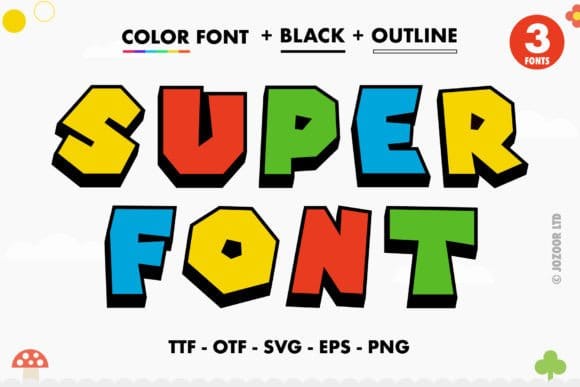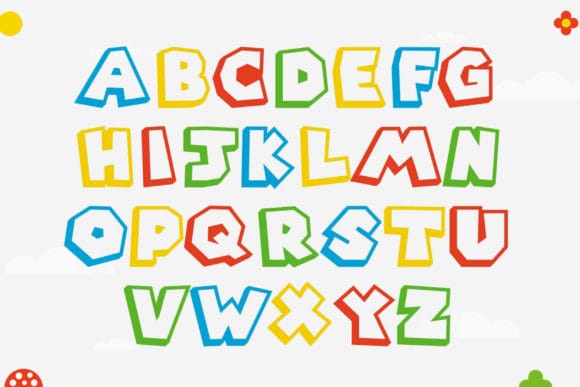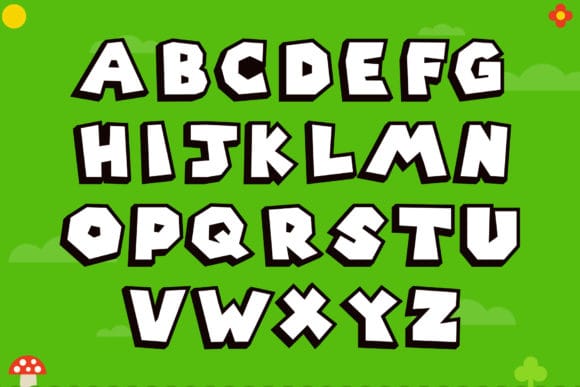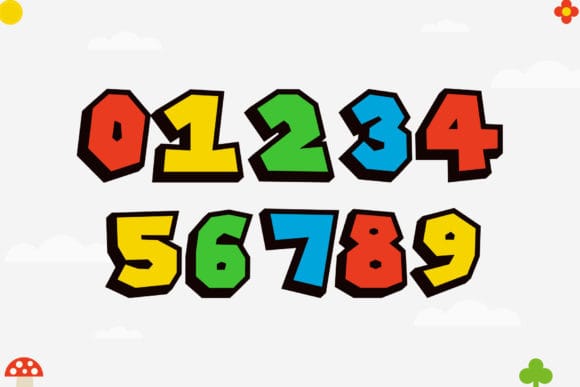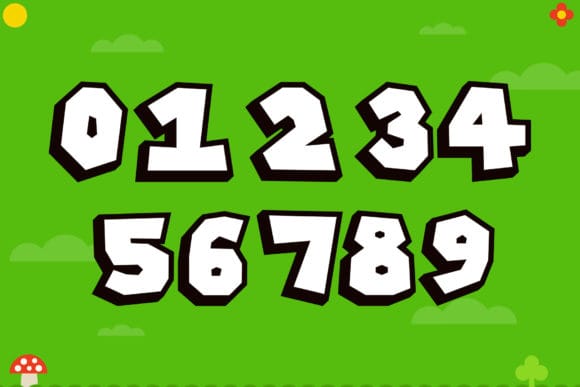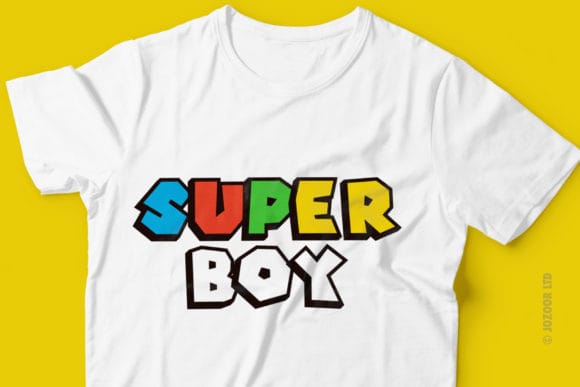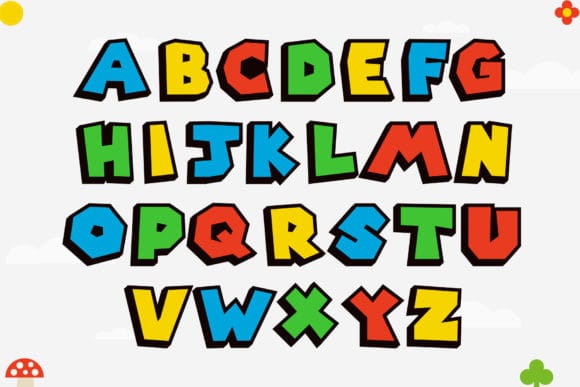
Super Font
Meet Super: the heavyweight champion of playful, chromatic typography. Designed for those who aren’t afraid of a little volume, this typeface blends a thick-set silhouette with a vibrant color palette to turn any project into a visual celebration. Whether youβre crafting high-energy branding or eye-catching digital assets, Super delivers a bold, effortless punch that demands attention.